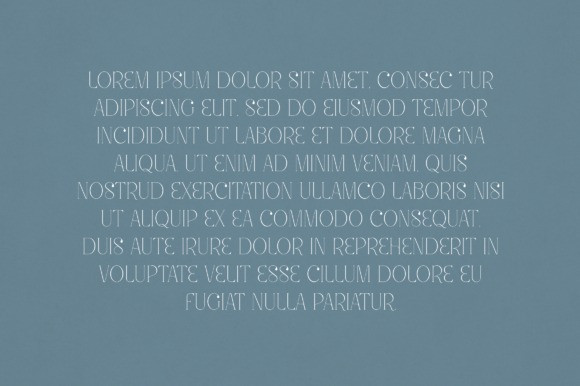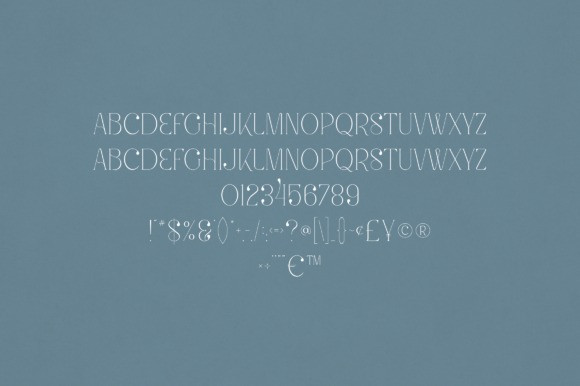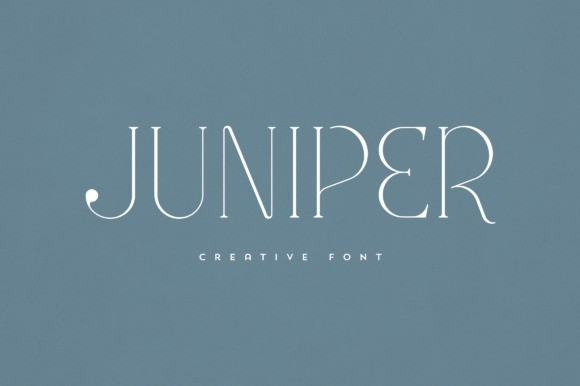
Juniper Font
Juniper Font is an elegant and versatile display font that will make your typography truly unique! It will enchant every logo, branding, headline, or plain text!